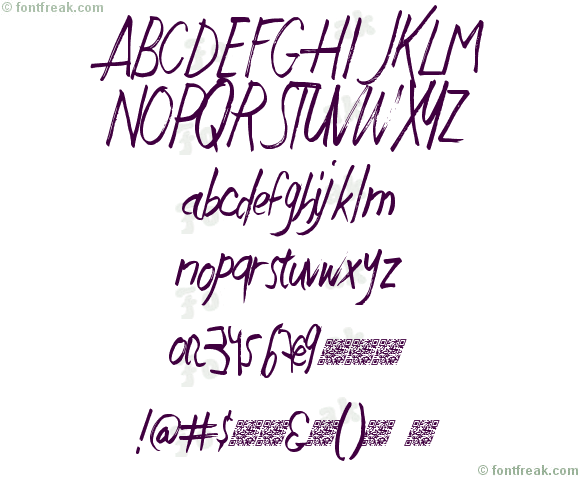
JustWriteDT by XEROGRAPHER FONTS is a captivating handwritten font that brings a personal touch to any design project. Released in 2014, this freeware font features a unique blend of spontaneity and elegance, making it an ideal choice for various creative applications. The visual characteristics of JustWriteDT include a medium stroke weight with a slight contrast that adds depth and personality. The letters are generously spaced, allowing for easy readability while maintaining a casual, inviting feel. The font's decorative elements, such as the playful ascenders and descenders, evoke a sense of authenticity, reminiscent of natural handwriting.
This font is particularly suited for a range of specific use cases. It shines in wedding invitations, where its charming style can convey romance and warmth. JustWriteDT is also perfect for crafting engaging restaurant menus, adding a personal flair that enhances the dining experience. For those in the creative industry, this font can be an excellent choice for branding projects, including logos and packaging designs, where a friendly yet professional look is desired. Additionally, content creators will find JustWriteDT ideal for social media graphics and blog headers, as it effectively captures attention and invites readers in.
Targeted towards graphic designers, small business owners, and content creators, this font provides an accessible option for anyone looking to infuse their work with personality and style. The JustWriteDT font free download offers an opportunity for creatives to experiment with a font that stands out in a sea of typefaces. Its distinctive charm, combined with its versatility, makes JustWriteDT a valuable addition to any designer's toolkit, ensuring that projects resonate on a personal level with their intended audience.